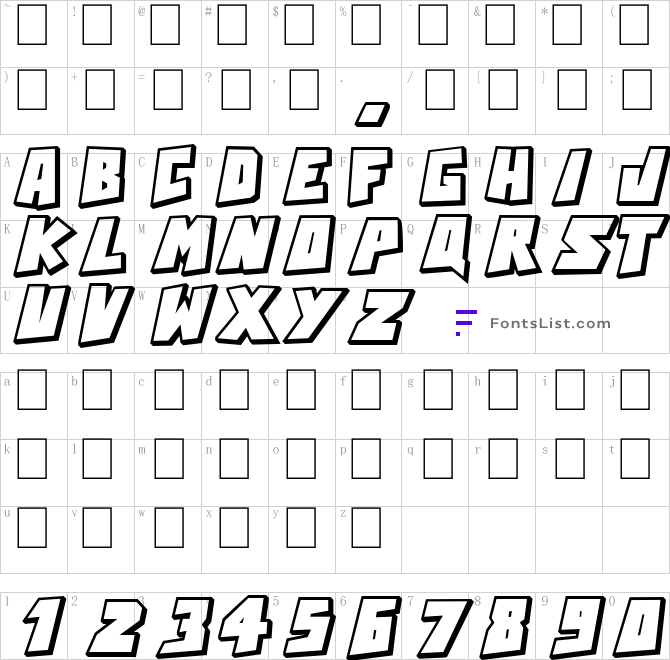
- Font Name:Action Comics
Action-Comics-copy-1.ttf is a very beautiful artistic font, Action-Comics-copy-1.ttf is widely used in the design and printing of various books and pictures,Action-Comics-copy-1.ttf has a strong visual impact,Action-Comics-copy-1.ttf is a commonly used font in newspapers, magazines and books, and is used in posters, e-commerce Poster design, store design, logo design, font design and other fields.Action-Comics-copy-1.